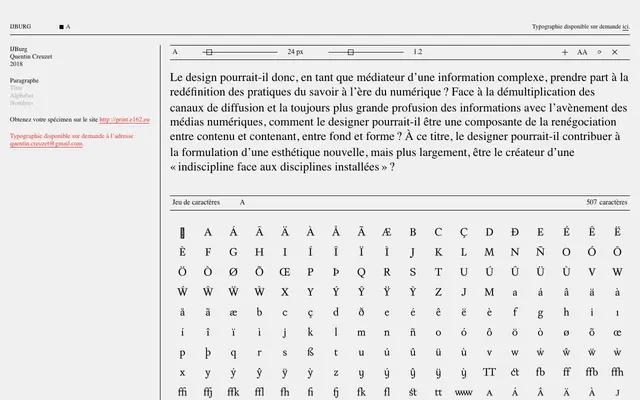
IJBurg
E162 · Quentin Creuzet · 2018
A French grotesque sans-serif by Quentin Creuzet, available on request through E162's type foundry.
Designed by Quentin Creuzet and released in 2018 under the E162 foundry, IJBurg is a grotesque sans-serif covering 507 characters. The typeface is distributed on a bespoke basis rather than through standard retail channels, with specimens available via print.e162.eu. Its restrained character suits both editorial text settings and display use.
Based on the specimen rendering, IJBurg presents as a French grotesque-style sans-serif with a neutral, utilitarian character suited to both text and display use.